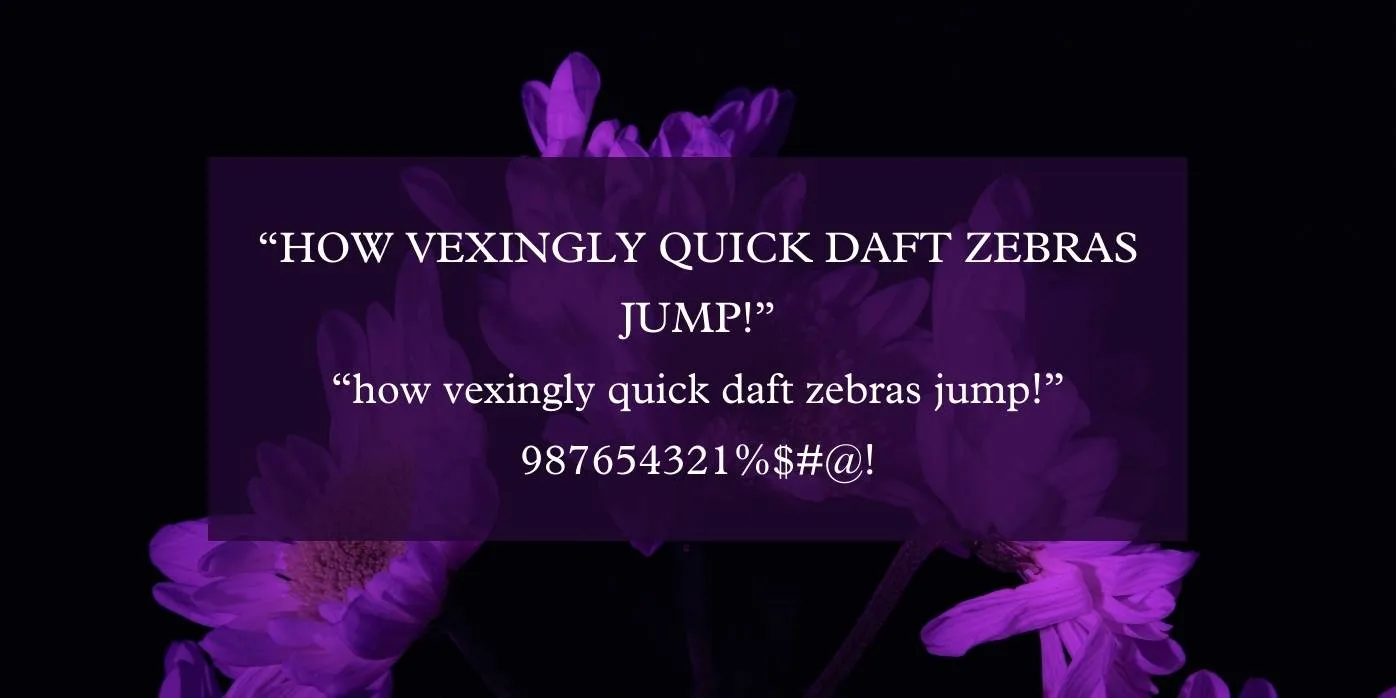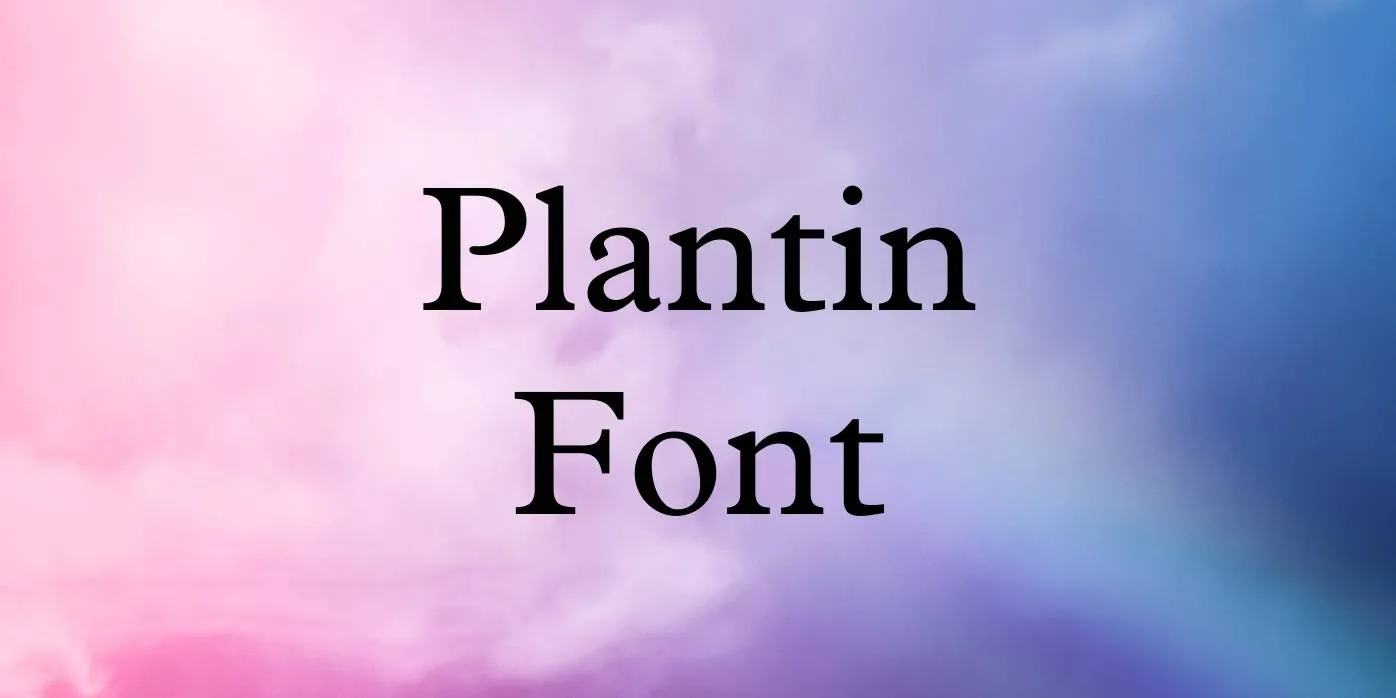
Plantin Font
Today, we are consulting on a famous typeface known as Plantin Font. This tremendous typeface was designed by Robert Granjon and ‚ÄéFrank Hinman. This typeface belongs to the serif typeface family. The first time this typeface was used in a book was in 1555 by French printer Robert Estienne.
Plantin Font is characterized by its sharpness, readability, and appearance. This typeface is perfect for those who want to give their document or website a luxurious look. It is named after the Plantin Press, which was founded by Christopher Plantin. This typeface is not found in google fonts.
Another similar font which is preface typeface¬†is perfect for different designs. This typeface also includes more than 200 glyphs and has a unique character set. The great thing about this typeface is that it’s available in both regular and italic styles. If you are looking to add a touch of sophistication to your work, then Plantin Font is the perfect choice for you.